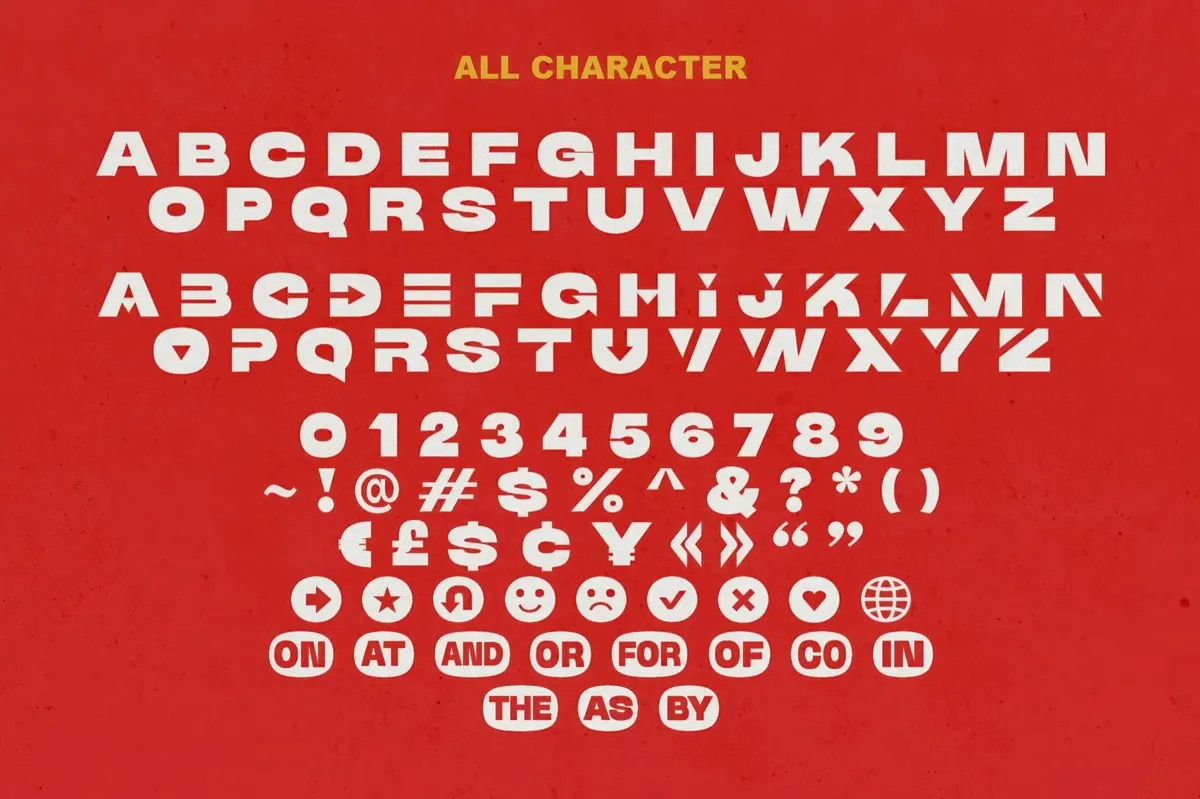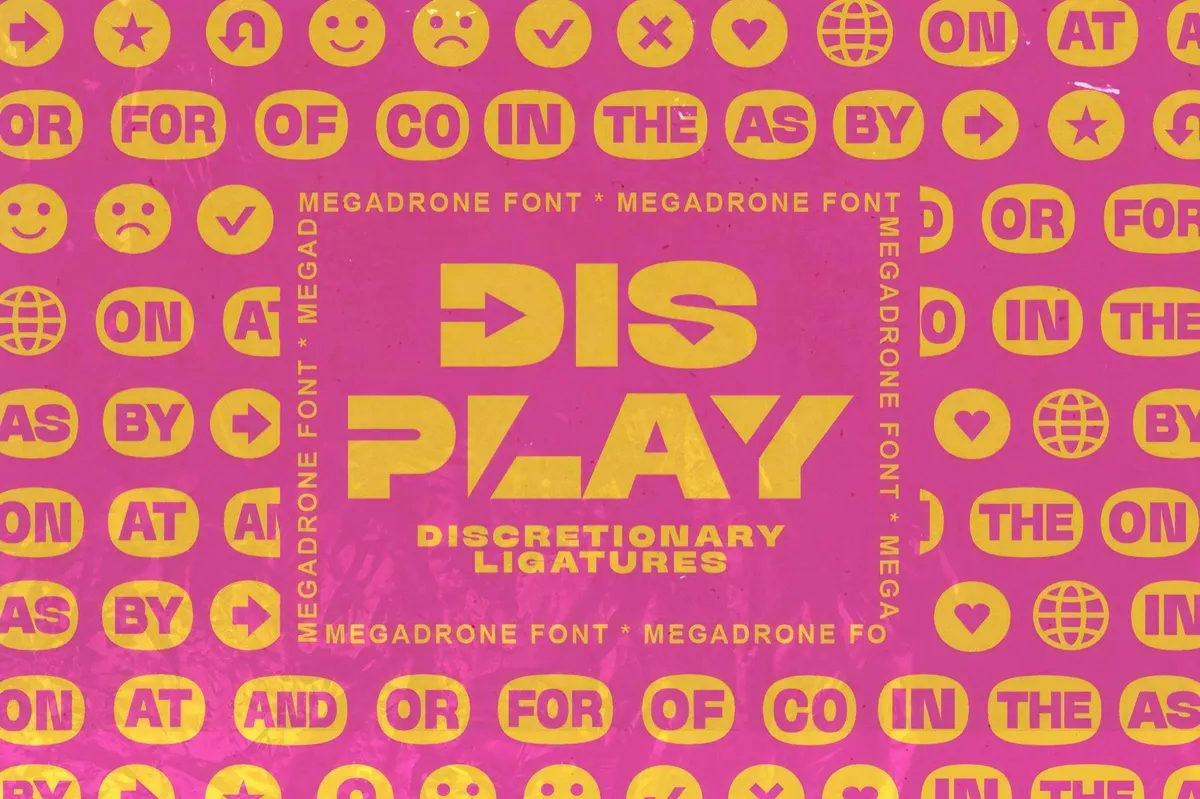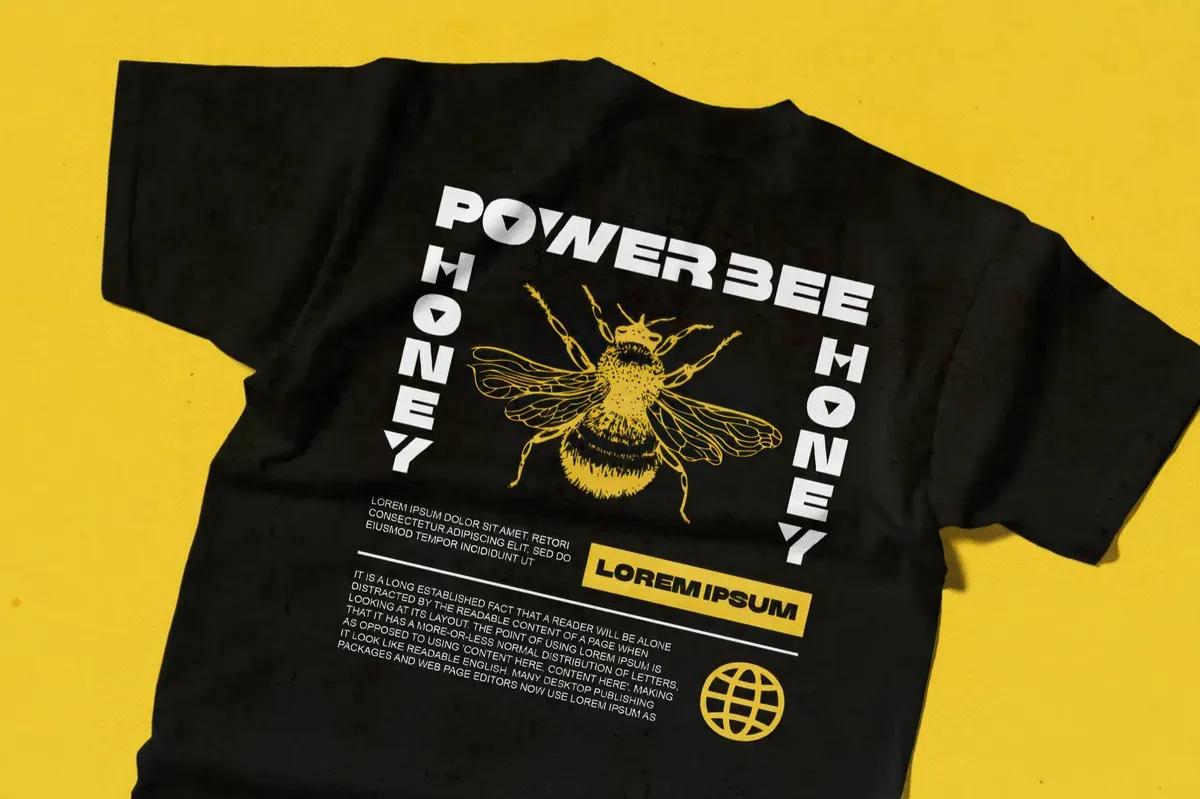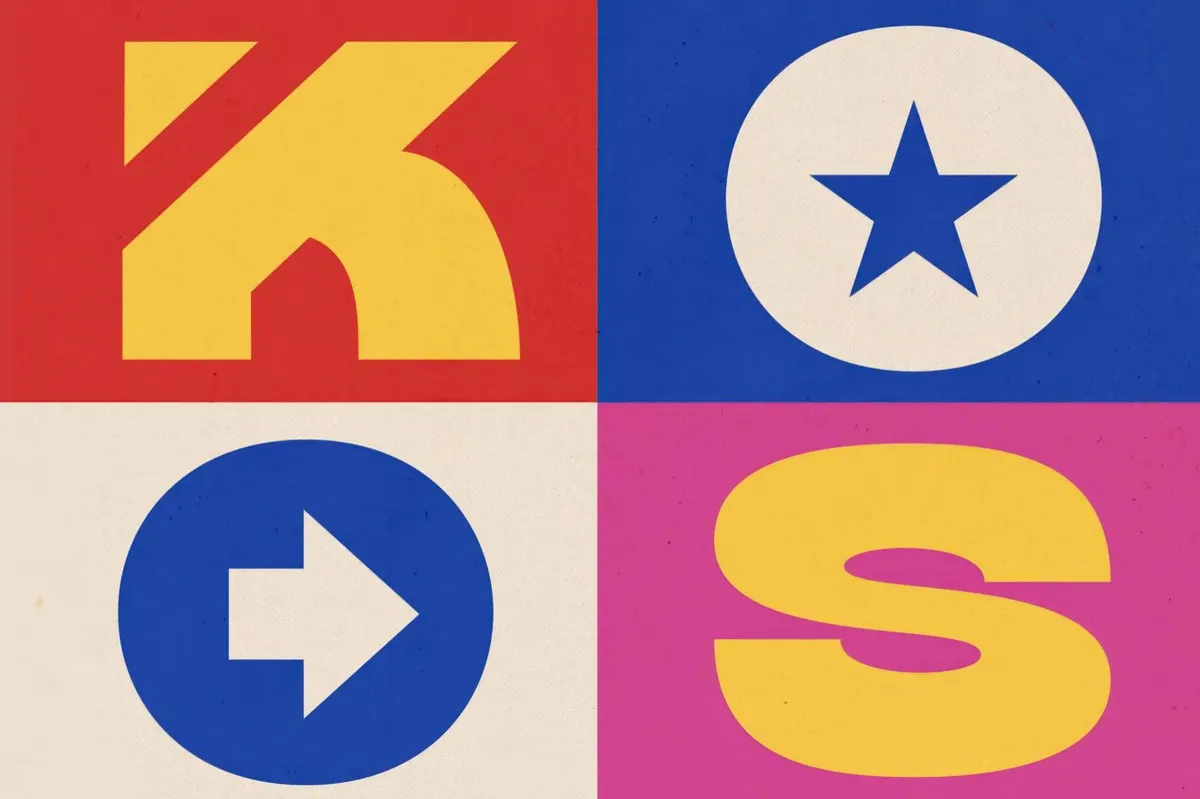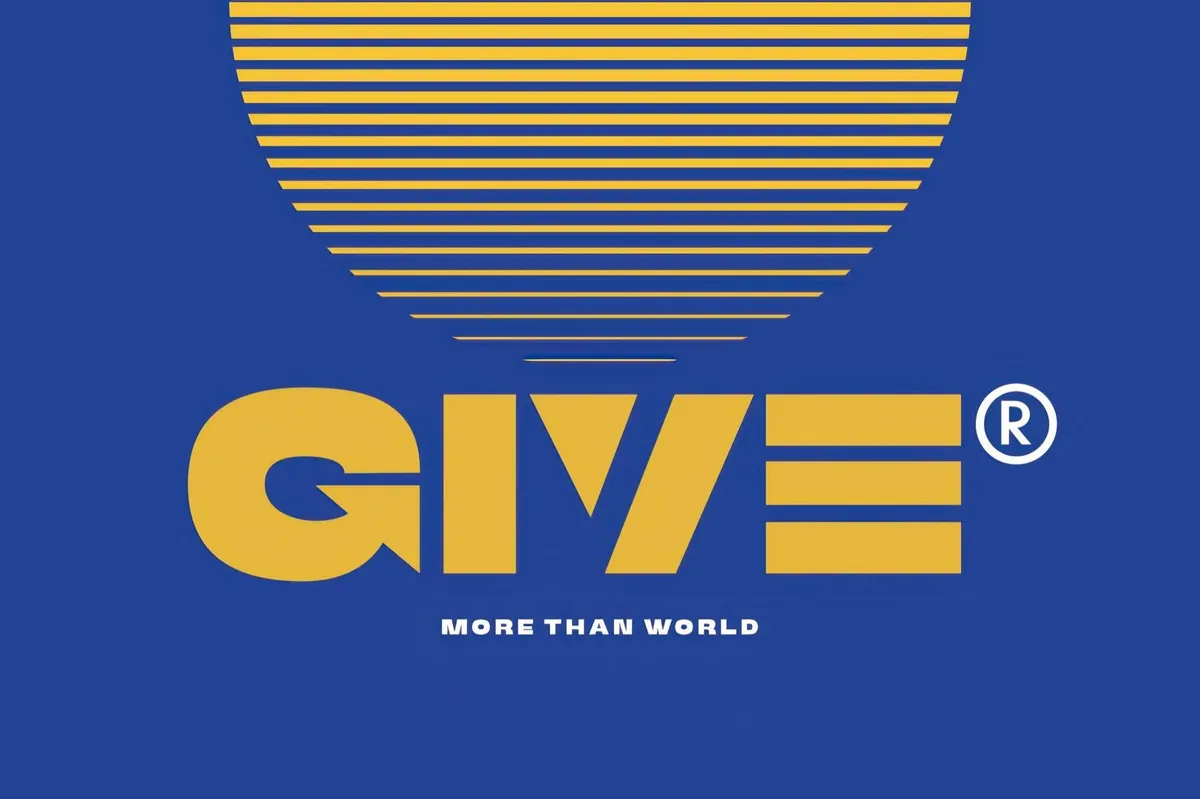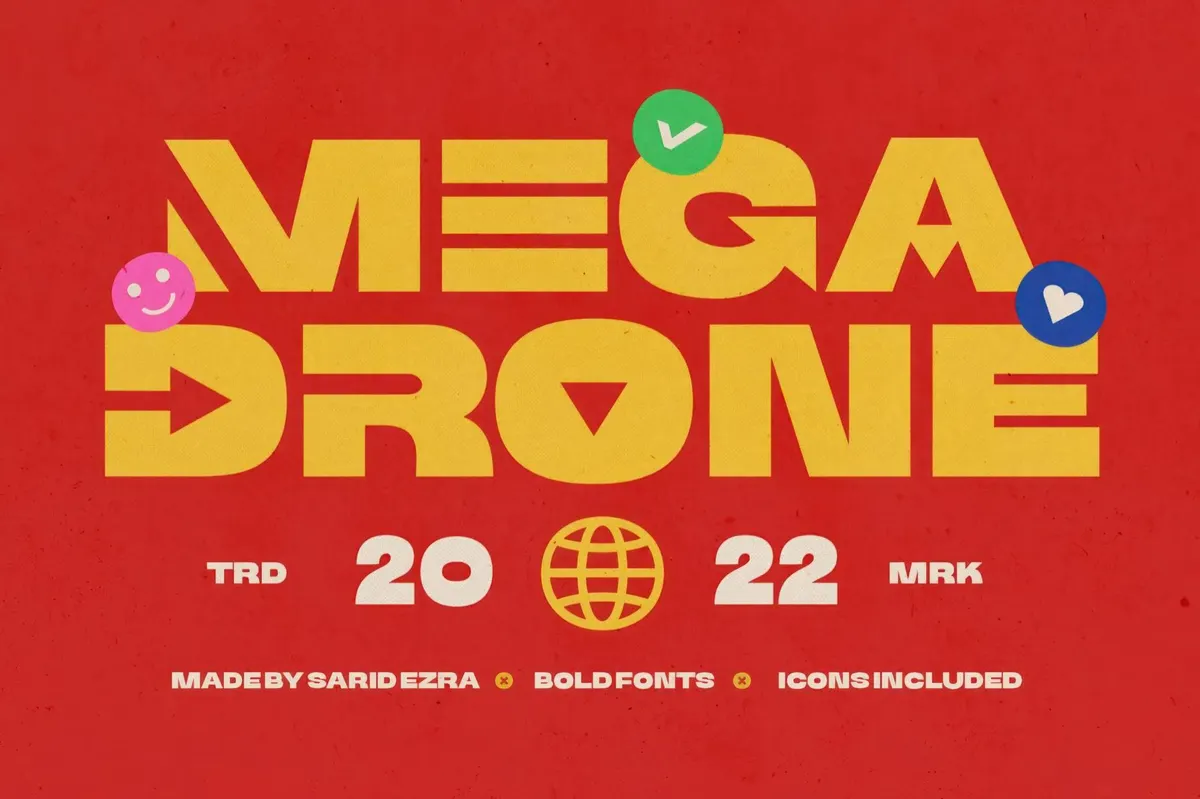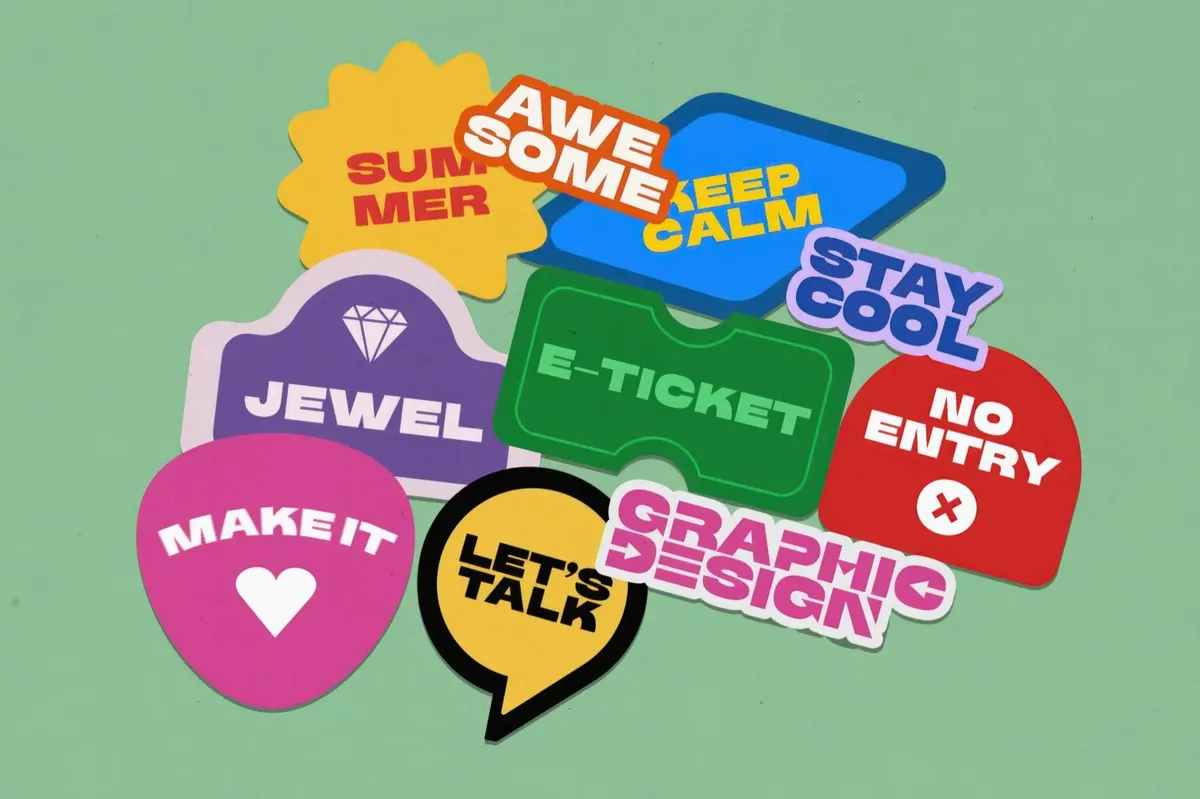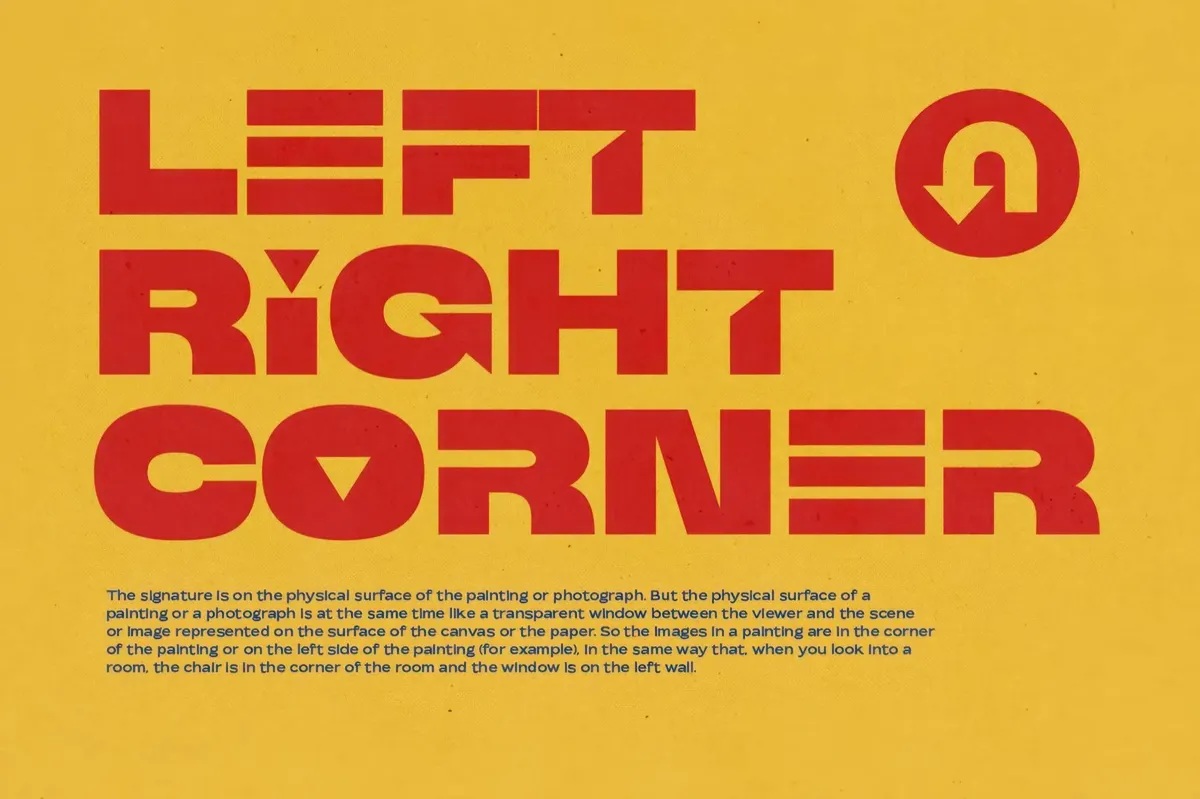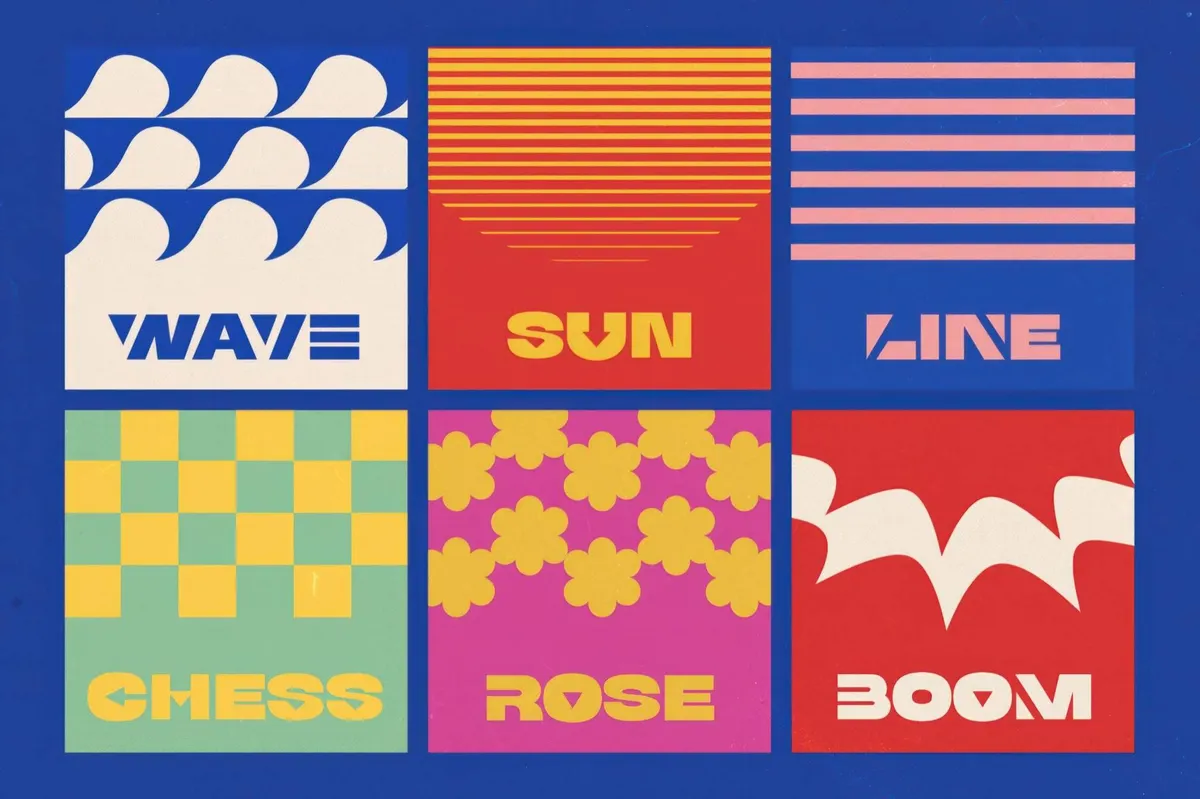
Mega Drone — Black Display Font
Mega Drone
We bet that Mega Drone font was forged in a factory where every word is built to dominate. Its blocky, all-caps structure commands attention, while the interchangeable lowercase adds a playful, unexpected twist. Need a headline that hits like a hammer? Mega Drone brings the muscle — loud, industrial, and impossible to overlook.
The set of glyphs includes upper case, lower case alternates, punctuation, numerals as well as multilingual characters. Icons and catchwords come baked in, accessible through ligatures, making bold compositions effortless. It’s a versatile design weapon, made for logos, posters, and visuals that refuse to sit quietly so you can use it to your advantage.